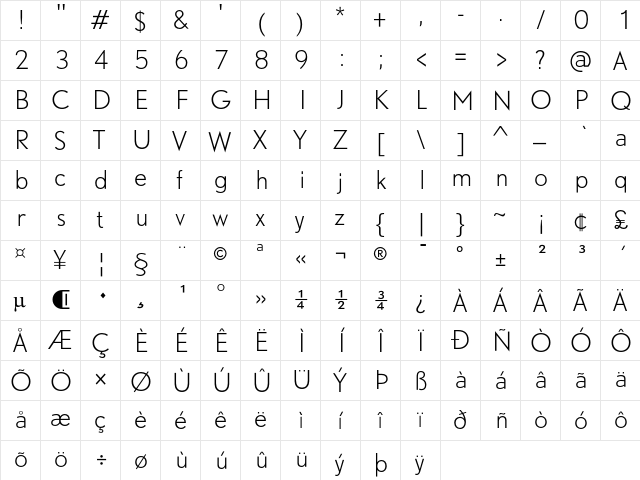
DTL Nobel T Light
Design Context for DTL Nobel Typeface
DTL Nobel offers clean, dependable letterforms without strong stylistic allegiance, making it a practical choice for designers who need flexibility. The delicate stroke weight brings airiness and refinement to layouts.